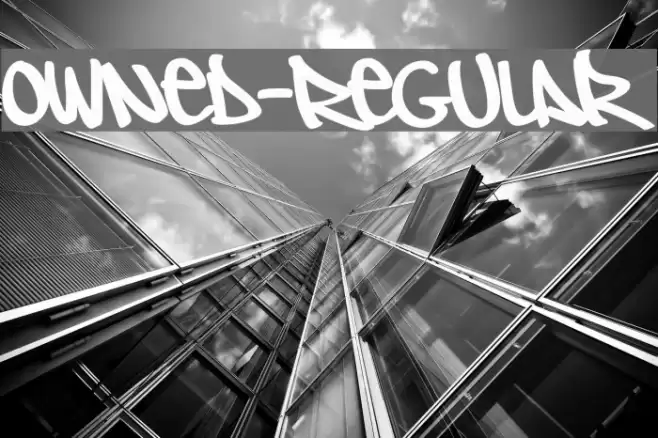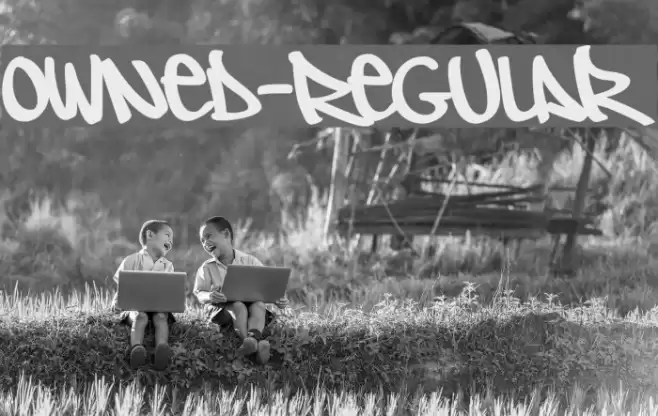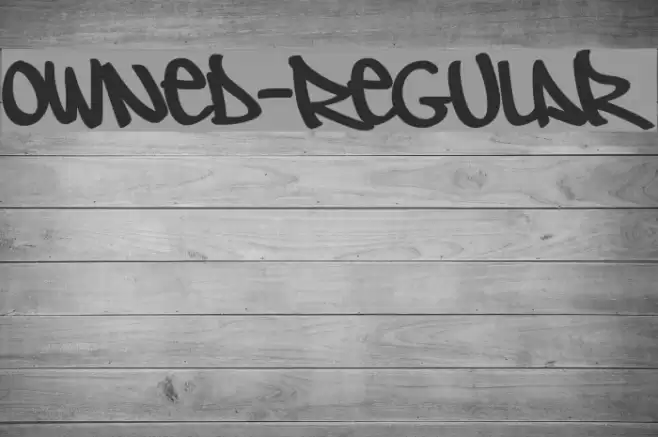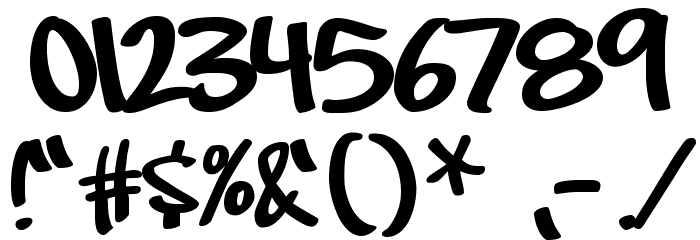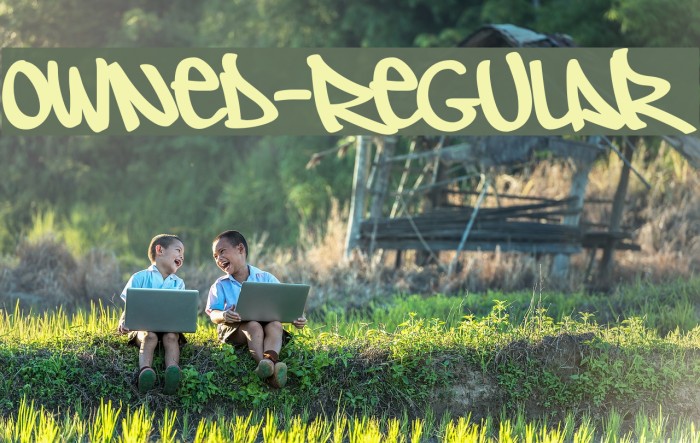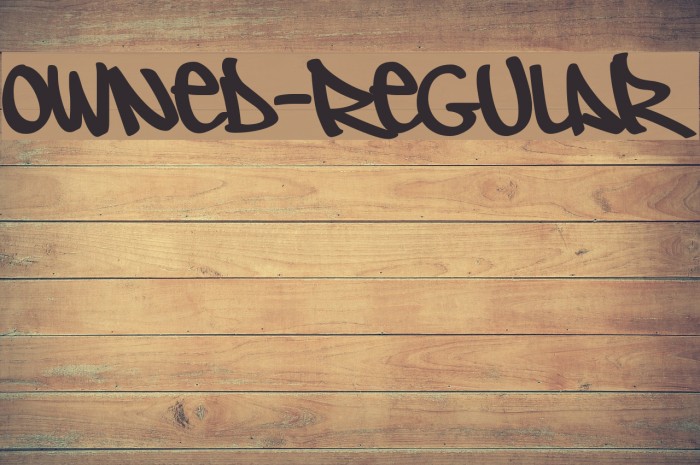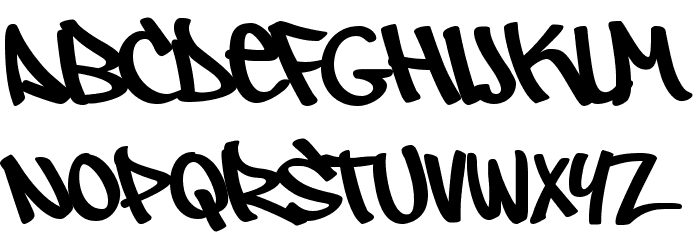
Owned-Regular Font
Owned-Regular Description
This font features a bold, energetic style with a handwritten appearance. The letters are interconnected with a fluid motion, giving it a dynamic and expressive look. The strokes are thick and consistent, providing a strong visual impact. The characters have a playful and informal vibe, making it suitable for creative and casual designs. The numbers and special characters maintain the same lively style, ensuring a cohesive look across all elements.
A bold, handwritten font with a dynamic and playful style from Graffiti fonts.
- Proposed Projects: Ideal for street art designs, posters, branding for creative industries, and social media graphics.